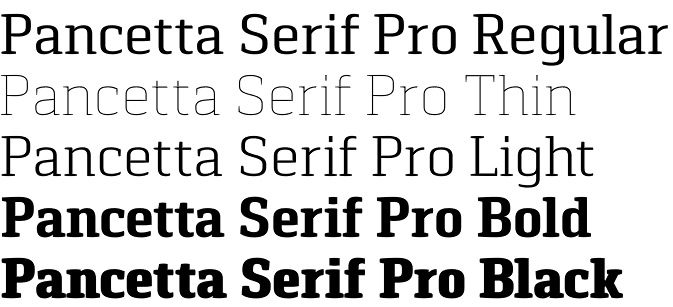
Pancetta Serif Pro font
Pancetta Serif Pro font family is designed by Andriy Konstantynov / Mint Type (we wrote about their previous work – Espuma Pro Regular free font). This is a face with rectangular geometry softened by elegant smooth curves which influence could be easily noticed even in the pillow-shaped serifs. Designed in 8 weights with real italics, Pancetta Serif Pro has excellent legibility enhanced by its increased x-height and wide apertures. It also features traditionally rich language support, dedicated small caps, 6 sets of figures, a bunch of ligatures and full Cyrillic alphabet. This font family could be used almost anywhere because of its uniqueness and determined style, but we highly recommend it for editorial design, posters, stationery, annual reports and packaging.
Designers: Andriy Konstantynov
Publisher: Mint Type